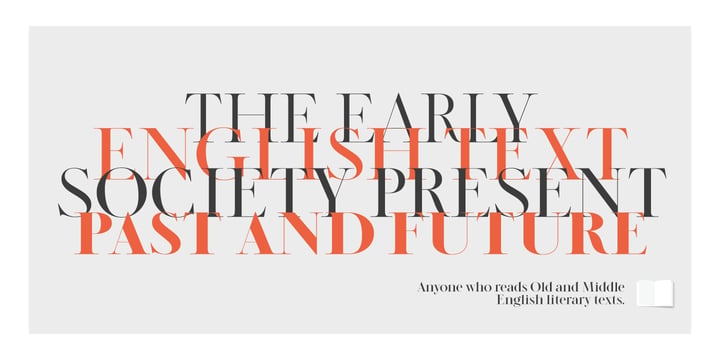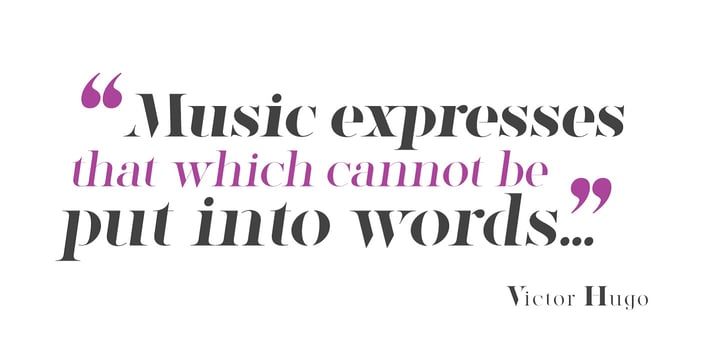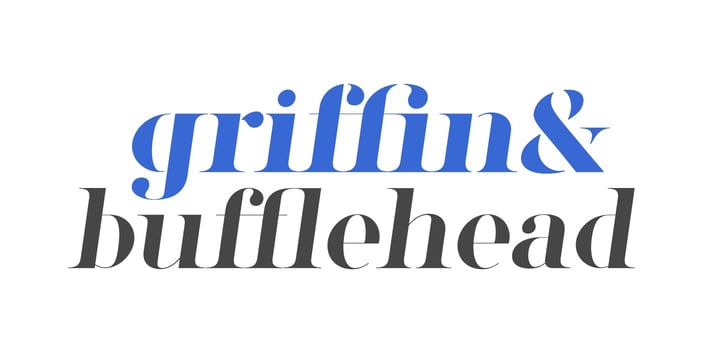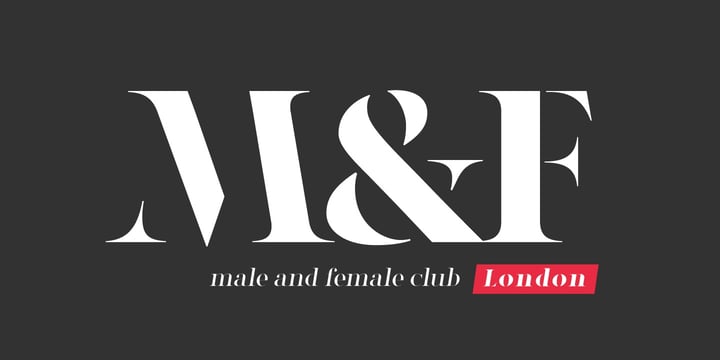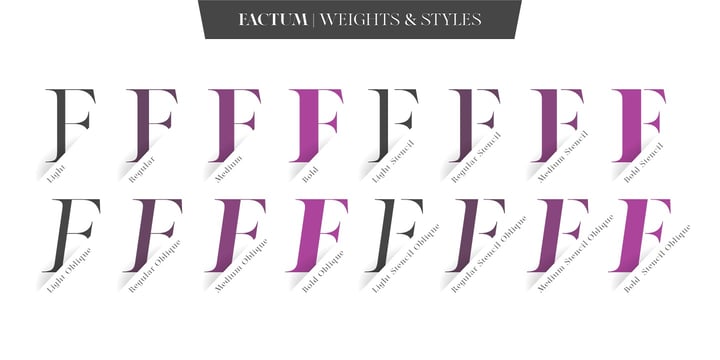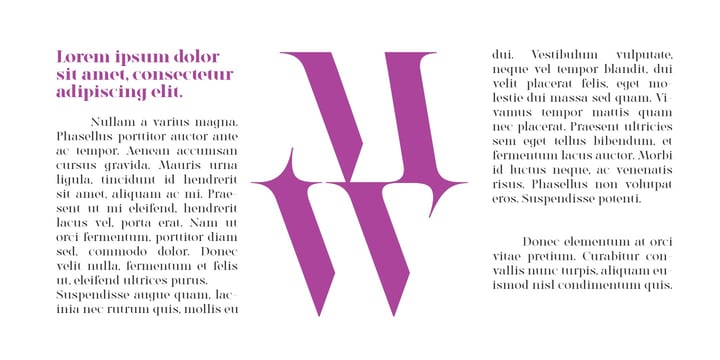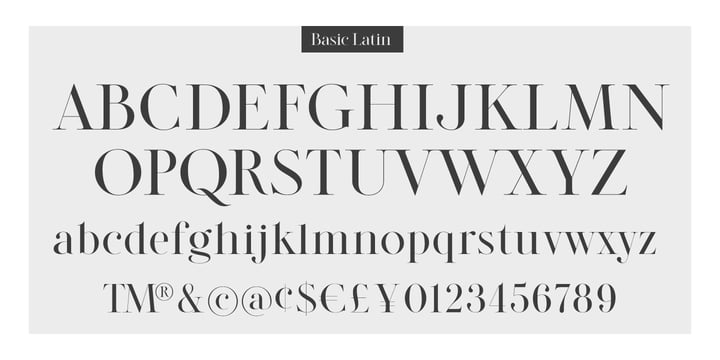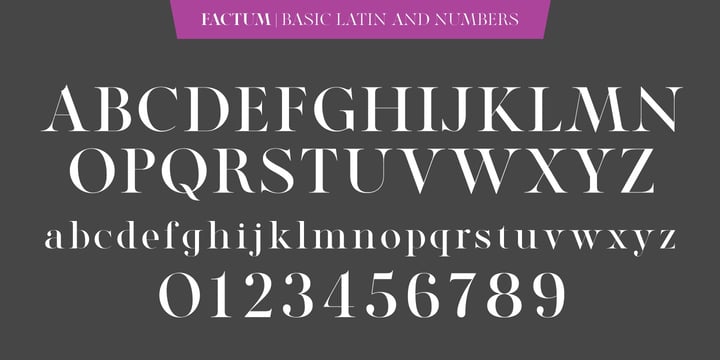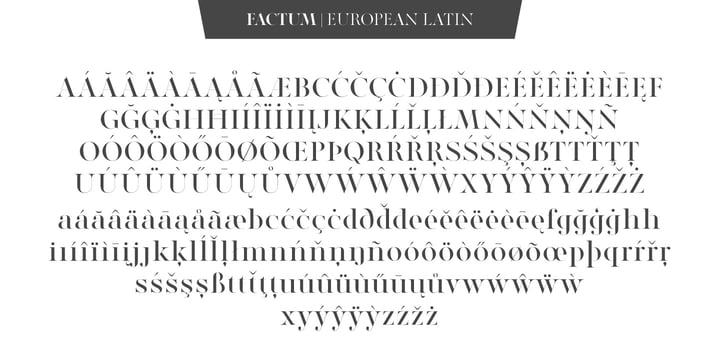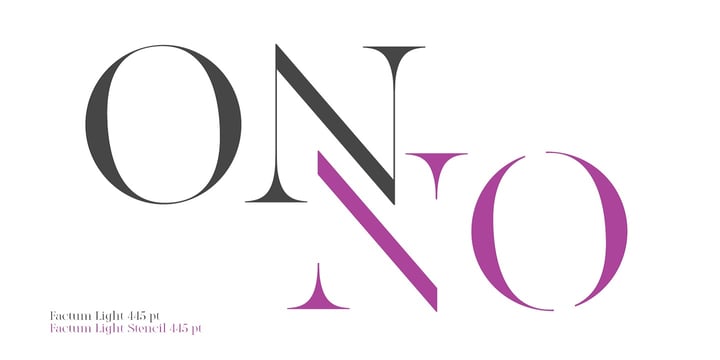
Atelier Elegance
Atelier Elegance brings together two expressive high-contrast serif fonts, each designed to capture attention with refined detail and modern elegance. Rather than functioning as a pair, each typeface offers its own unique voice—perfect for creating distinctive, high-end designs. A natural choice for editorial layouts, branding, and sophisticated visual storytelling.
Factum Light von Fontop
Legatum Light von Fontop
Legatum Medium von Fontop
Legatum Bold von Fontop
Factum Regular von Fontop
Factum Medium von Fontop
Factum Bold von Fontop